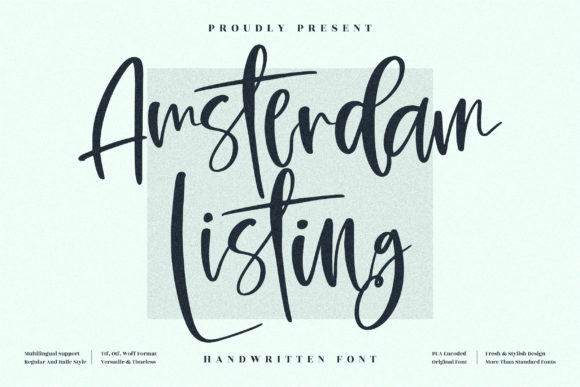
Behold, the Amsterdam Listing Font, a script font with a relaxed theme, designed by Perspectype, ready to transform your creative world. This font is not just a collection of letters; it's an invitation to let your imagination soar and create captivating designs that whisper elegance and charm.
With its flowing curves and playful personality, the Amsterdam Listing Font dances across your screen, leaving a trail of visual delight. Its whimsical nature makes it the perfect choice for adding a touch of whimsy to any project, whether it's a wedding invitation, a heartfelt letter, or a playful poster. The Amsterdam Listing Font is your passport to a world of creativity, where imagination knows no bounds.
Dive into the depths of your creativity and let the Amsterdam Listing Font guide you to new heights of expression. Whether you're a seasoned designer or just starting your artistic journey, this font will become your trusted companion, helping you craft designs that resonate with your audience. Its versatility knows no limits, making it suitable for a wide range of projects, from personal stationery to captivating social media graphics.
Step into the world of the Amsterdam Listing Font and unlock the door to endless creative possibilities. Let your designs bloom with charm, elegance, and a touch of whimsy. This font is more than just a tool; it's an extension of your artistic self, ready to bring your visions to life.